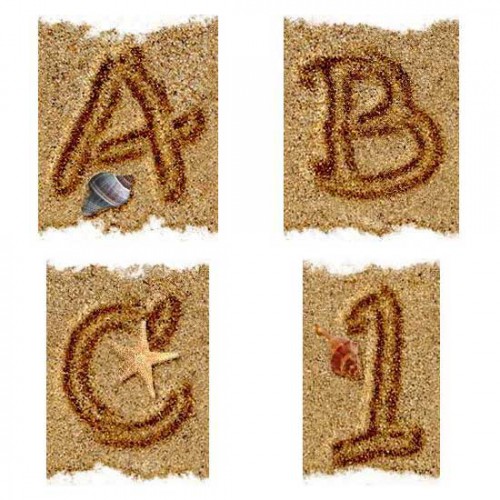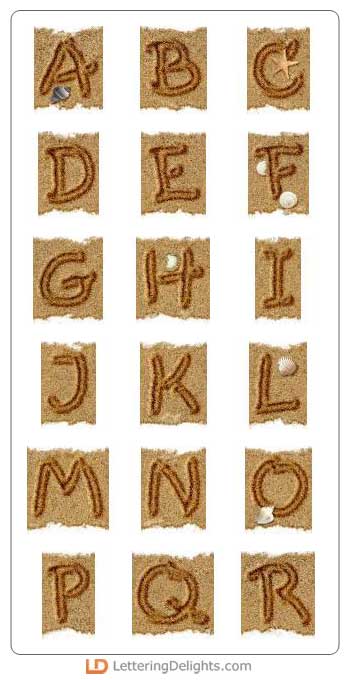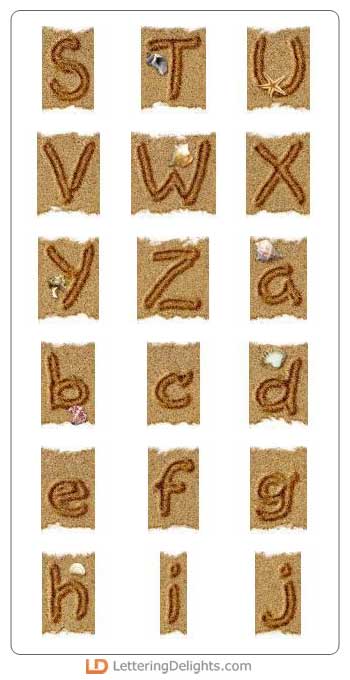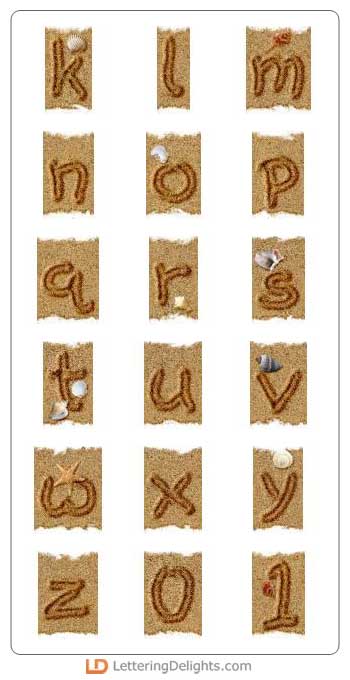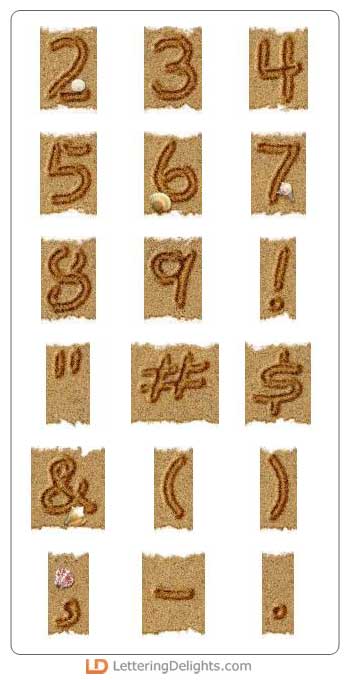
Add a little spice to your beach vacation scrapbooking. Create a title or journaling that is written in the sand with this clever alphabet. The letters are punctuated by seashell accents. Make cool lettering for paper crafts with beach, ocean, shell, sandbox, or vacation themes.